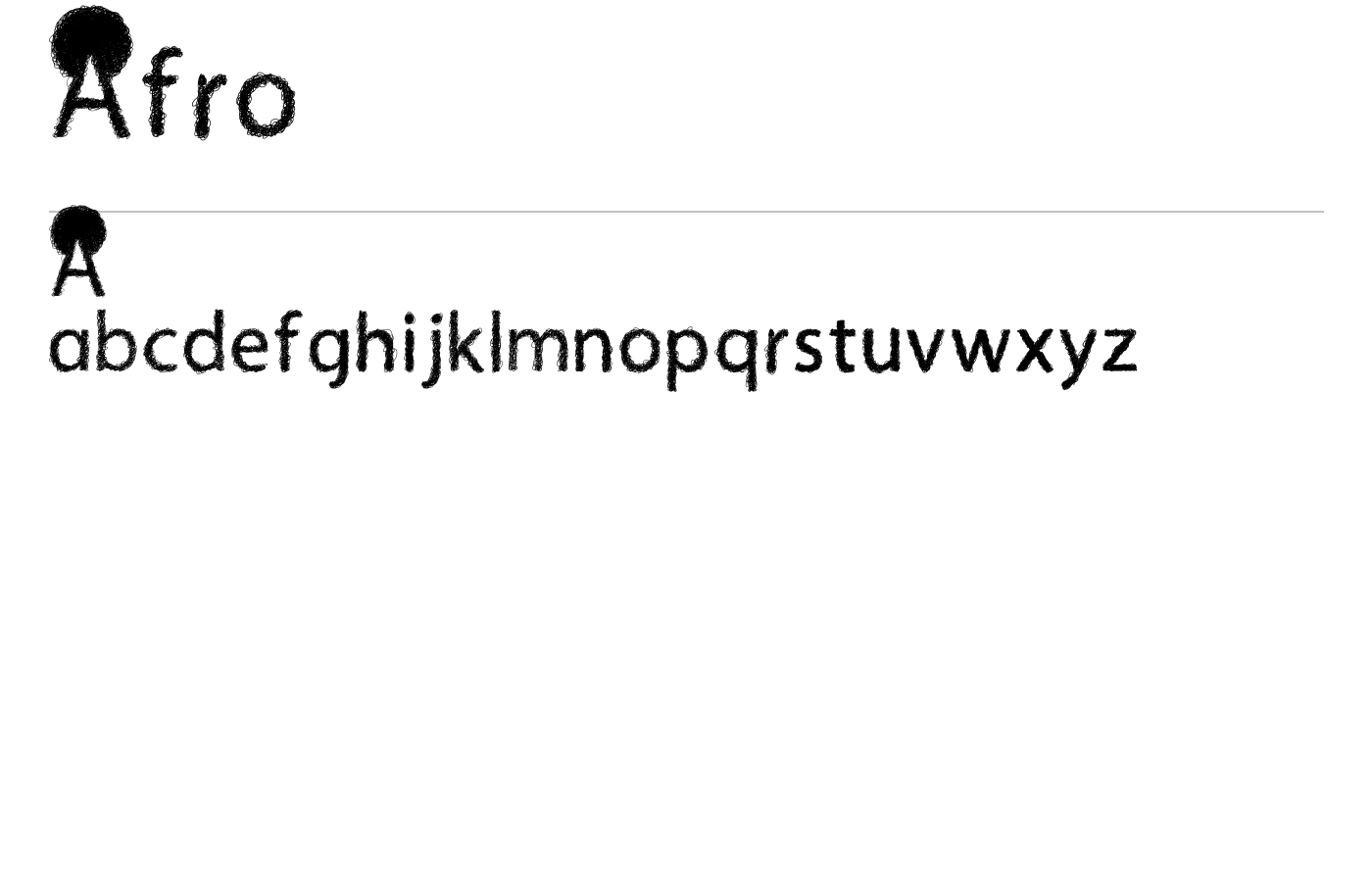
Afro Font is a playful and unique sans serif typeface characterized by its textured, hand-drawn appearance that gives it a lively and informal feel. The letters have a slightly rounded, soft stroke with an artistic, fuzzy effect, making it ideal for creative projects, children’s materials, or branding that aims to express warmth and originality. This font works well in headlines and display use where a distinctive, approachable vibe is desired.
Afro Font